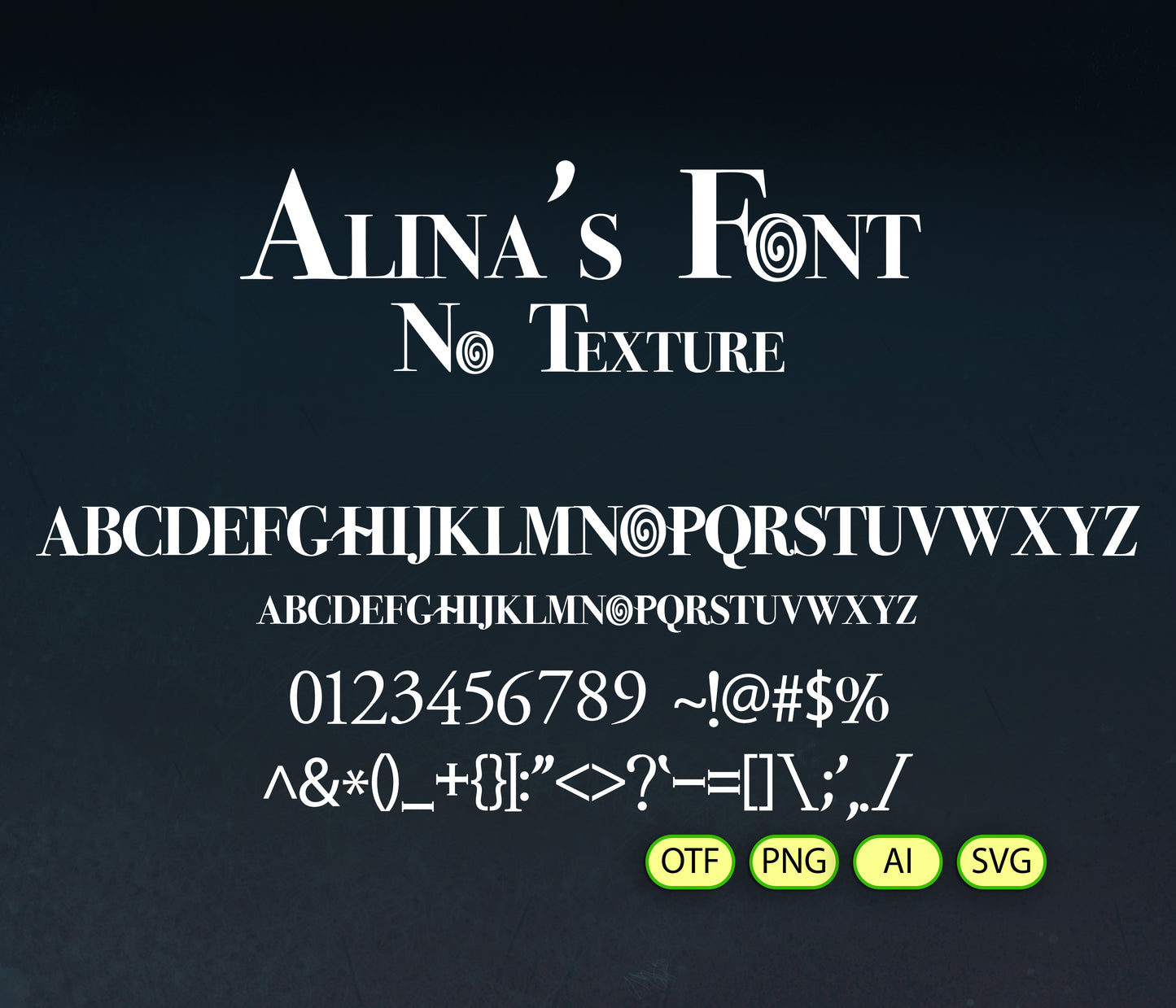
Witchcraft Sisterhood Font
Step into the enchanting world of magical mayhem with our Witchcraft Sisterhood Font No Texture, capturing the essence of spellbinding mischief and Salem-inspired sorcery. Perfect for Halloween enthusiasts, themed event planners, content creators, and creative professionals, this font brings the bold, bewitching spirit of supernatural comedy stories to your projects. Create eye-catching invitations, merchandise, or digital content with the dramatic energy of spell-casting adventure narratives.
Bold Typography for Mystical Design & Spooky Projects
Our Witchcraft Sisterhood Font No Texture features dramatic, stylized letterforms with smooth, clean surfaces reflecting the world of magical practitioners and autumn-evening settings.
- Event Promotions: Create eye-catching invitations, posters, and banners for Halloween parties, mystical conventions, and gatherings that capture the spirit of enchanted entertainment
- Merchandise Design: Perfect for t-shirts, posters, stickers, and accessories that showcase the bold aesthetic of spellcasting themes
- Digital Media: Enhance websites, blogs, and social media with bewitching headers and graphics that express the humor of supernatural adventures
- Creative Content: Add authentic flair to fan art, character designs, and creative projects inspired by magical sisterhood tales
- Personal Projects: Bring enchanting energy to scrapbooking, DIY crafts, and home decor inspired by the world of mischievous spell-weaving characters
Our font pays tribute to the world of magical comedy stories and Halloween cinema, empowering your projects with its bold and bewitching spirit. Whether crafting fan materials, designing themed products, or adding an enchanted touch to personal projects, this font communicates the vibrant essence of spell-casting entertainment. Ready to inject supernatural mischief into your creations? This font is your key to eye-catching, impactful design.